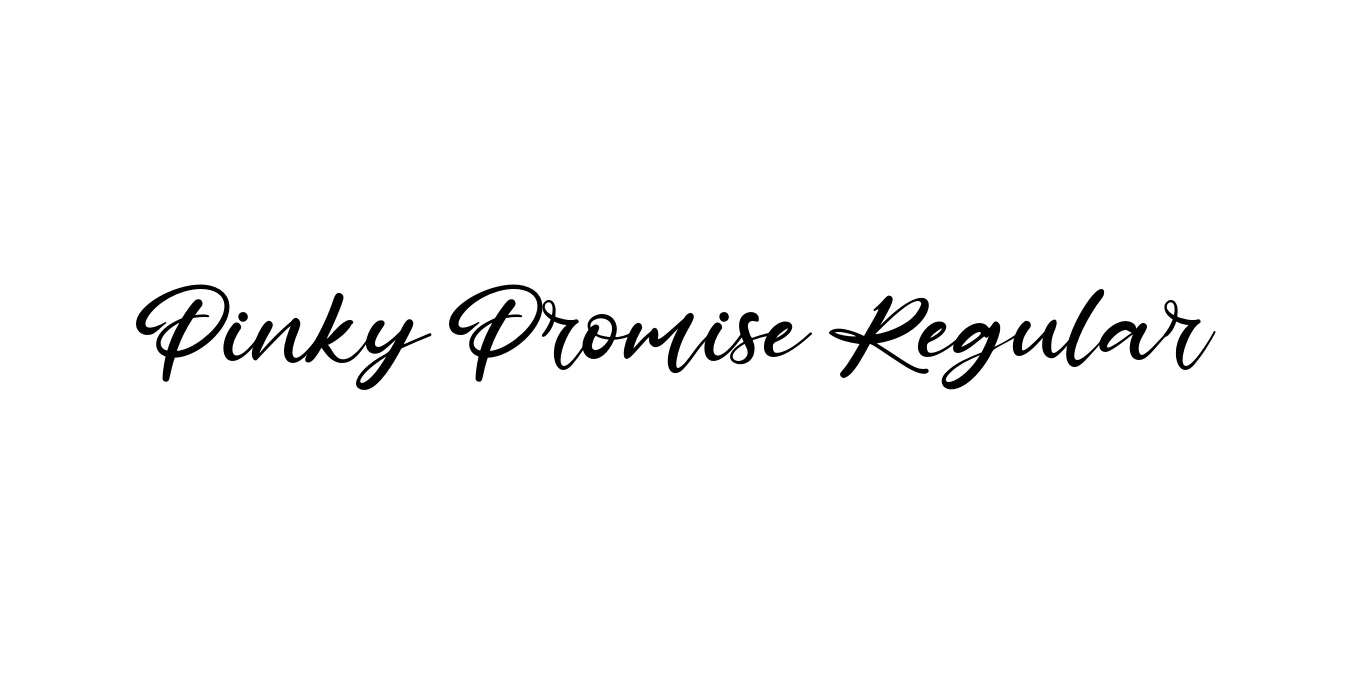
Pinky Promise Regular
Designed by Misti's Fonts
| Category | Handwritten Script |
Pinky Promise Regular is a charming and whimsical handwritten script font that captures the essence of a heartfelt promise. Designed by Misti's Fonts, this typeface features fluid, organic strokes that mimic natural penmanship, providing an authentic and personalized feel to any project. Its lighthearted and airy design makes it a top choice for creative layouts that require a touch of sincerity and warmth.
Since its release, Pinky Promise has become a favorite in the DIY crafting and wedding planning communities. The font offers a comprehensive set of characters, including elegant ligatures and flowing swashes that enhance its calligraphic appeal. Whether used for digital graphics or printed materials, it maintains a clean and legible profile while conveying a sense of handmade beauty.
Pinky Promise Regular Best Uses
Ideal for invitations, place cards, and heartfelt save-the-date notes.
Perfect for creating engaging Instagram quotes and personal blog headers.
Great for vinyl cutting, personalized gifts, and scrapbooking designs.
Suited for boutiques, photography watermarks, and feminine branding.